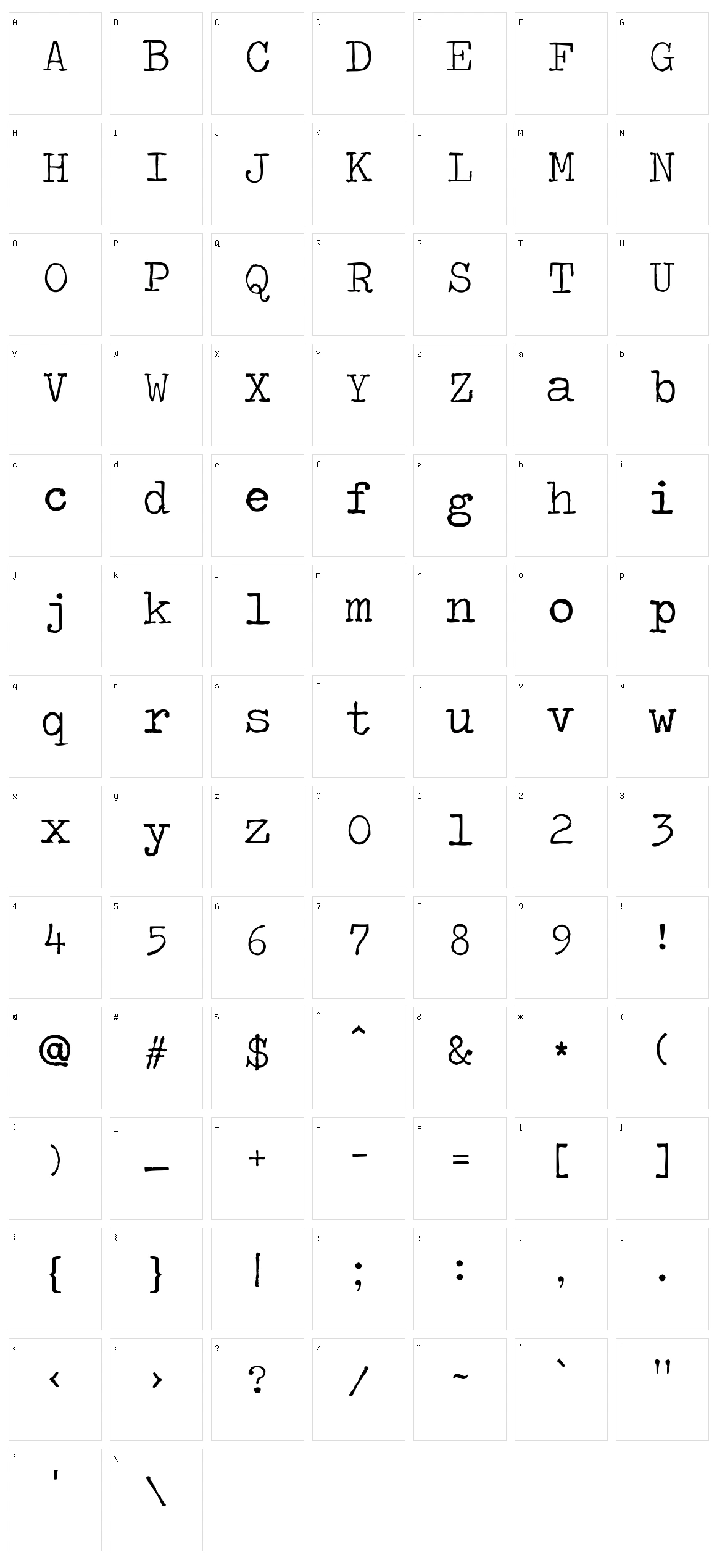
The free font Traveling Typewriter is carefully designed by Carl Krull, showcasing a thoughtful balance of creativity and usability and falls under the Typewriter font style. When you download the ZIP file, it contains only 966.1 KB of font files, making it lightweight and quick to download. Please review the license details below to understand permitted usage and distribution rights. If license information is not available, we recommend using this font for personal projects only or contacting the author directly for commercial usage permissions.